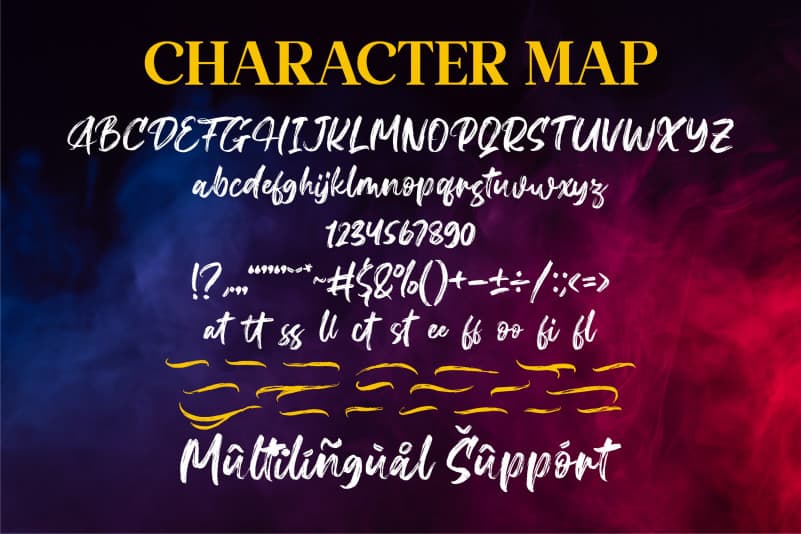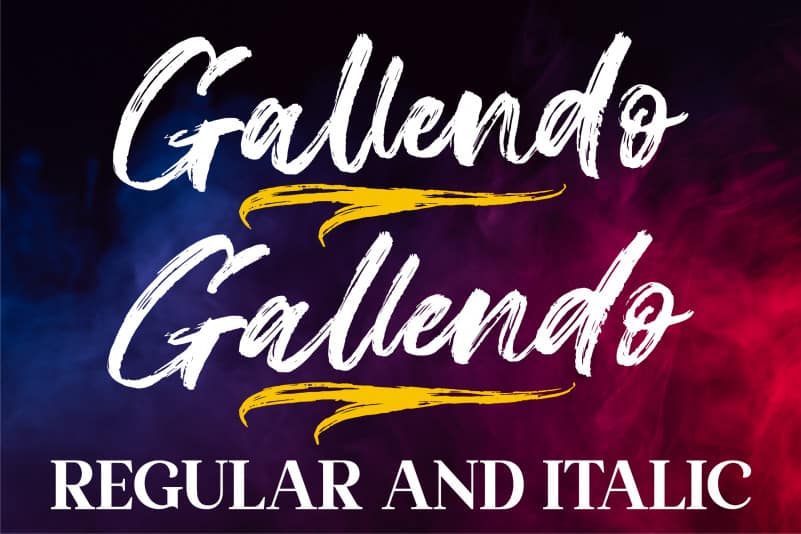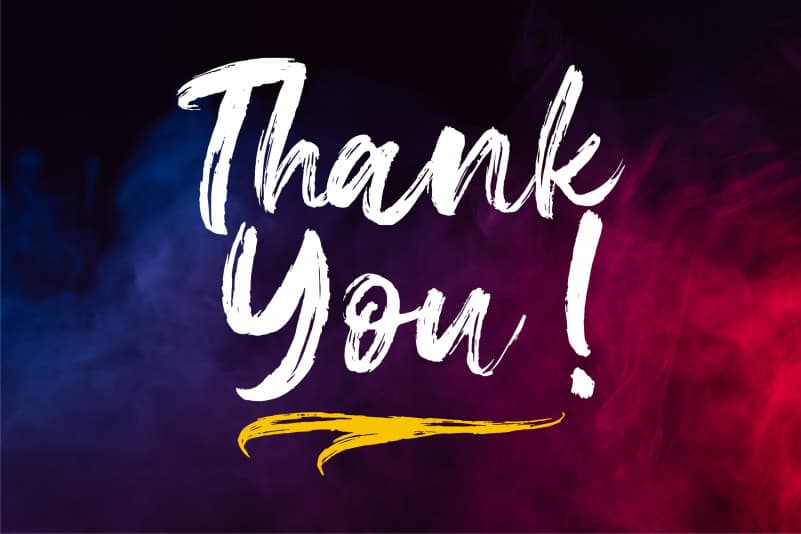
Gallendo Brush Font
Gallendo Brush Font, from Letterena, is a romantic calligraphy font, suitable for any projects such as: logos, branding projects, homeware designs, product packaging, mugs, quotes, posters, shopping bags, t-shirts, book covers, name card, invitation cards, greeting cards, label, photography, watermark, special events, and all your other luxury projects that need a strong brush taste.